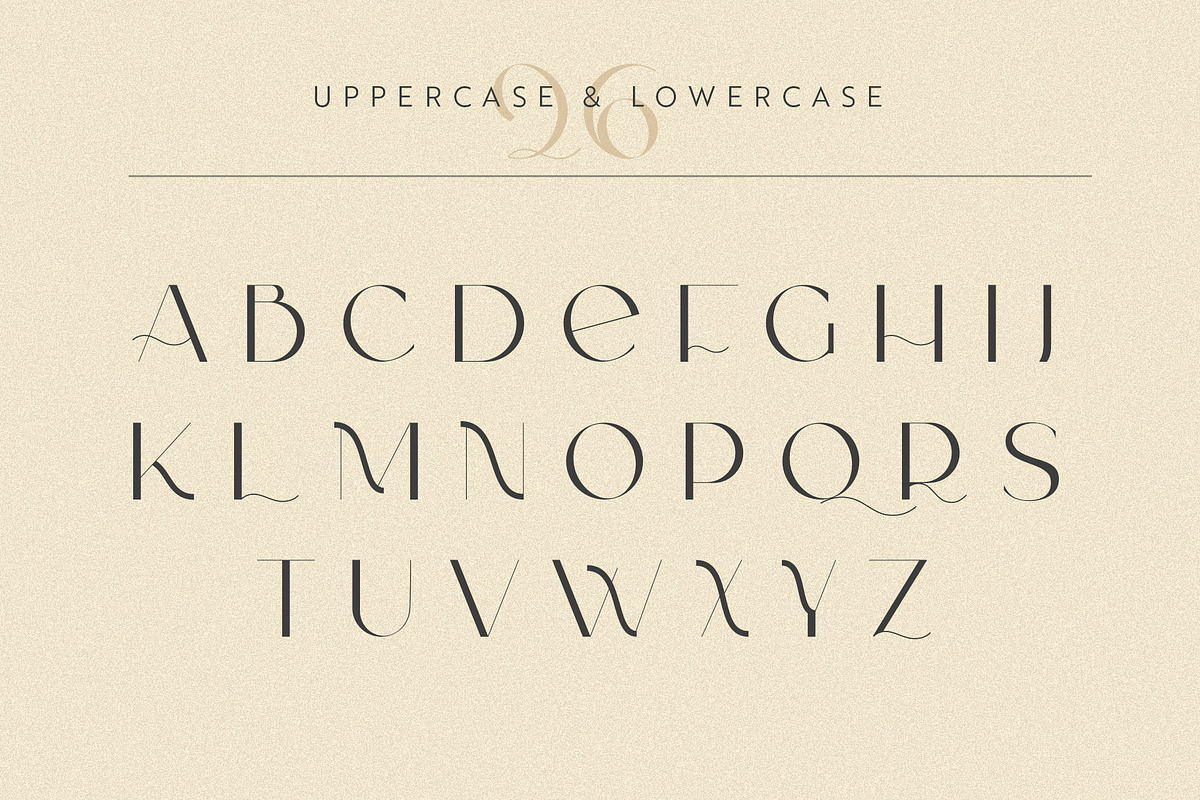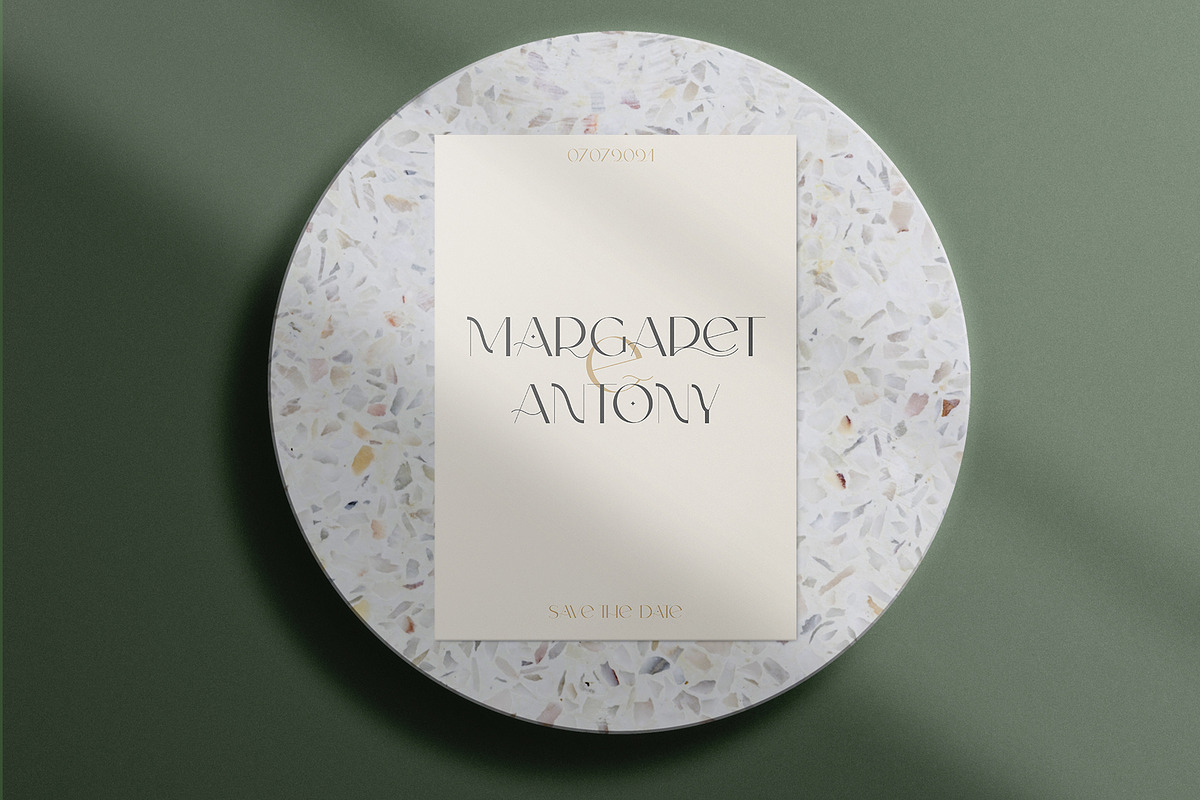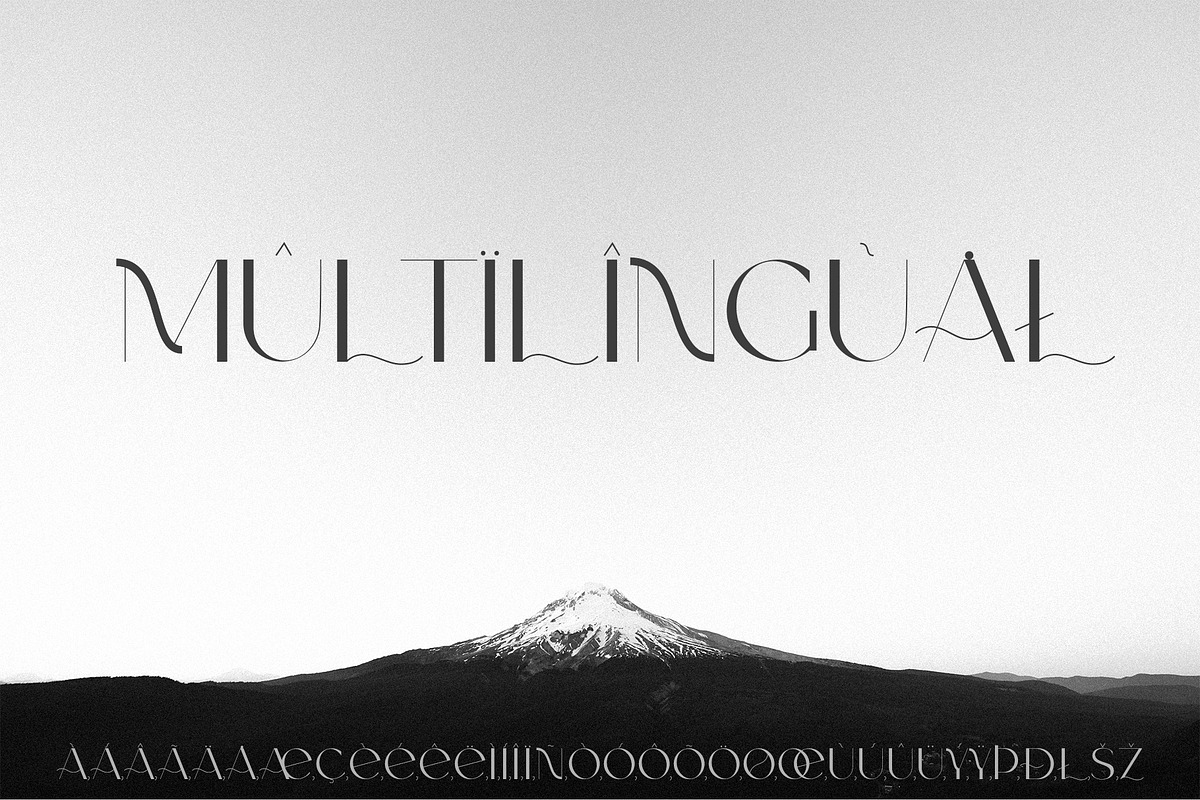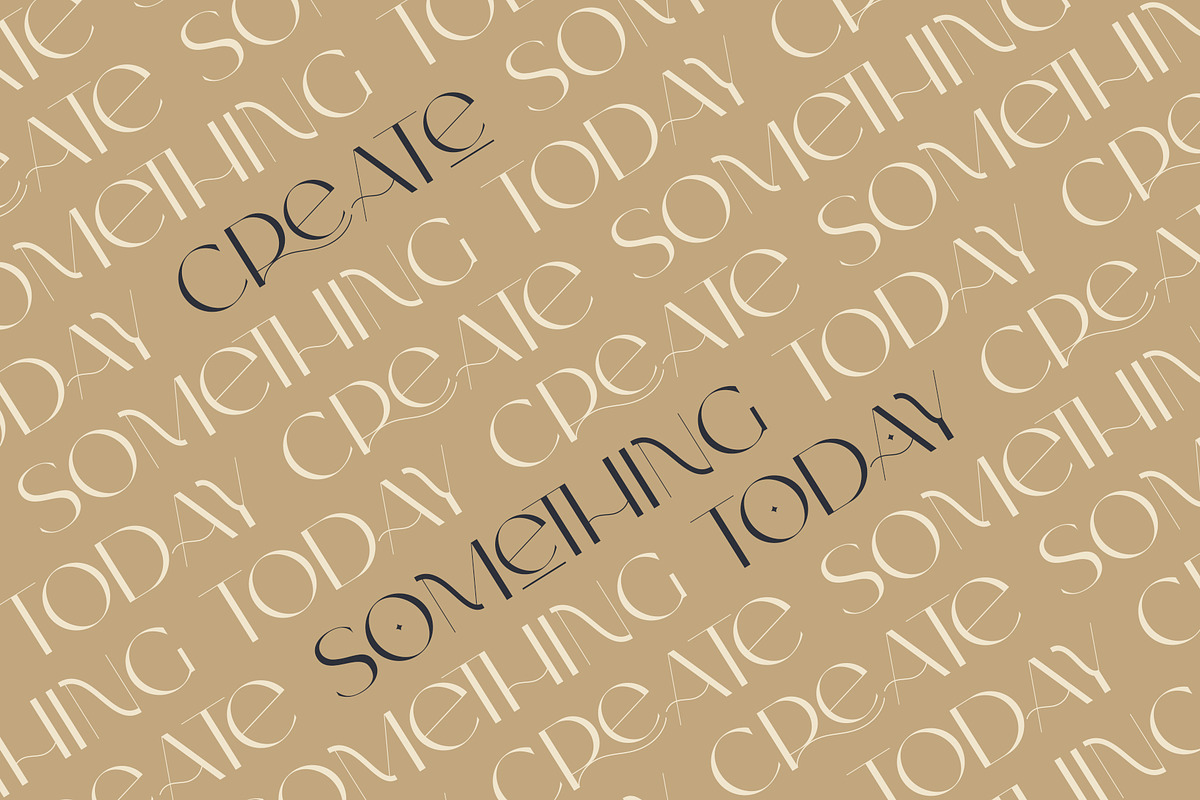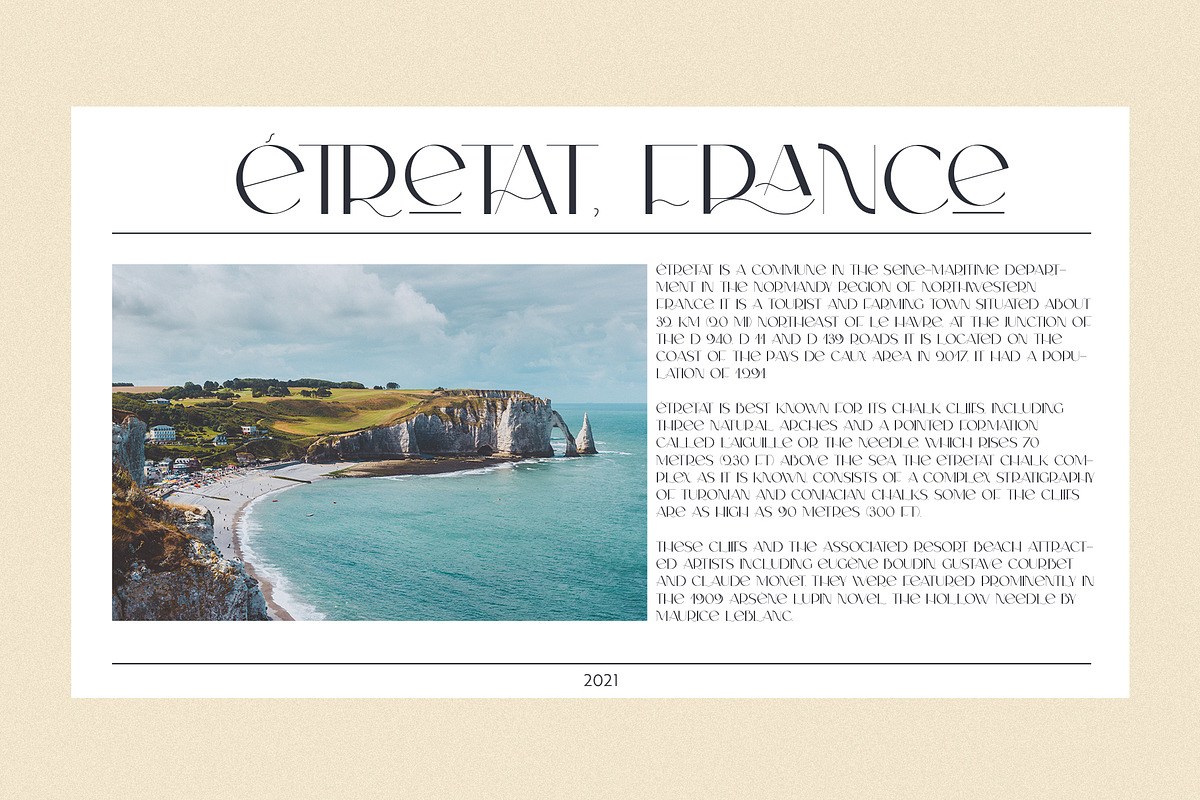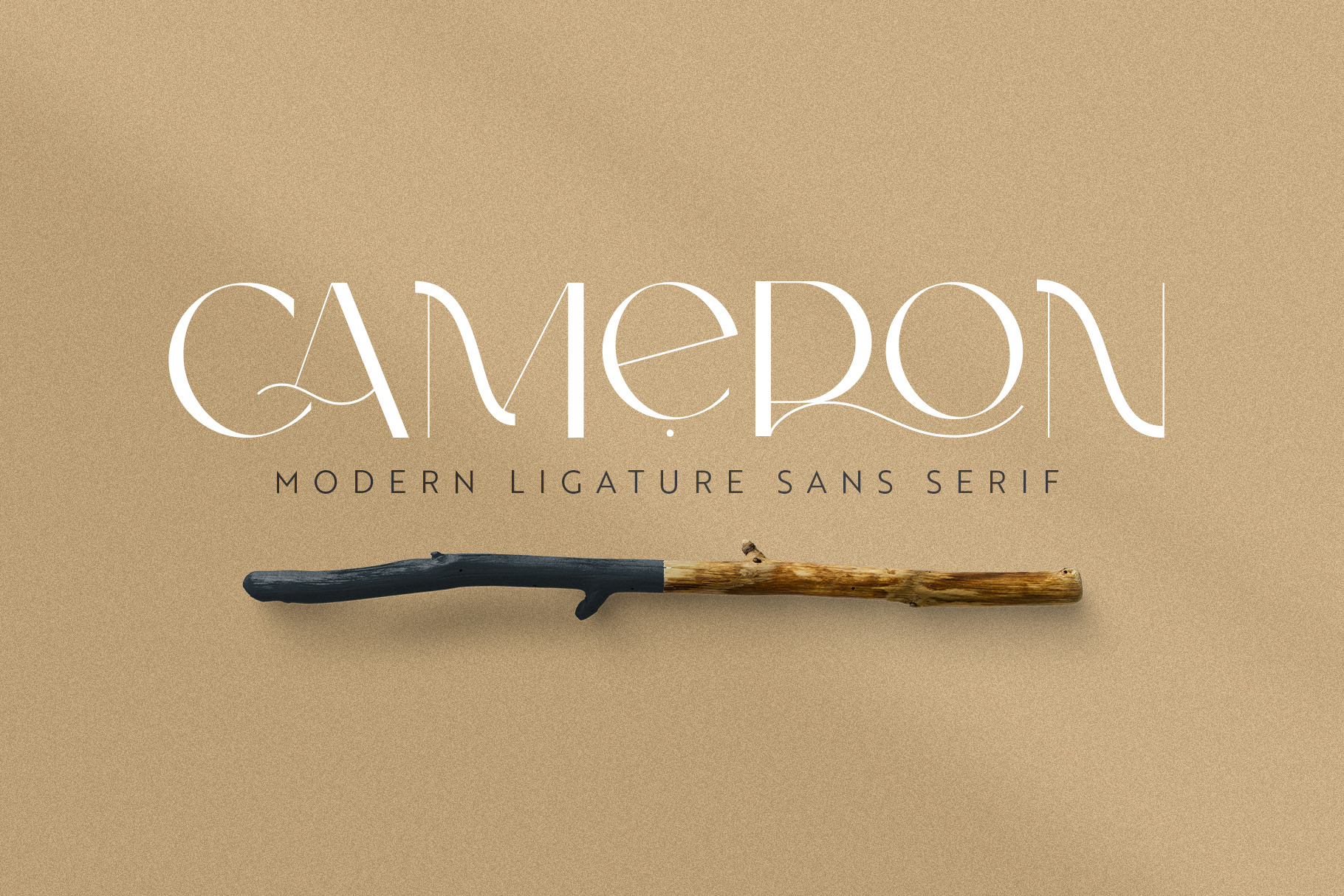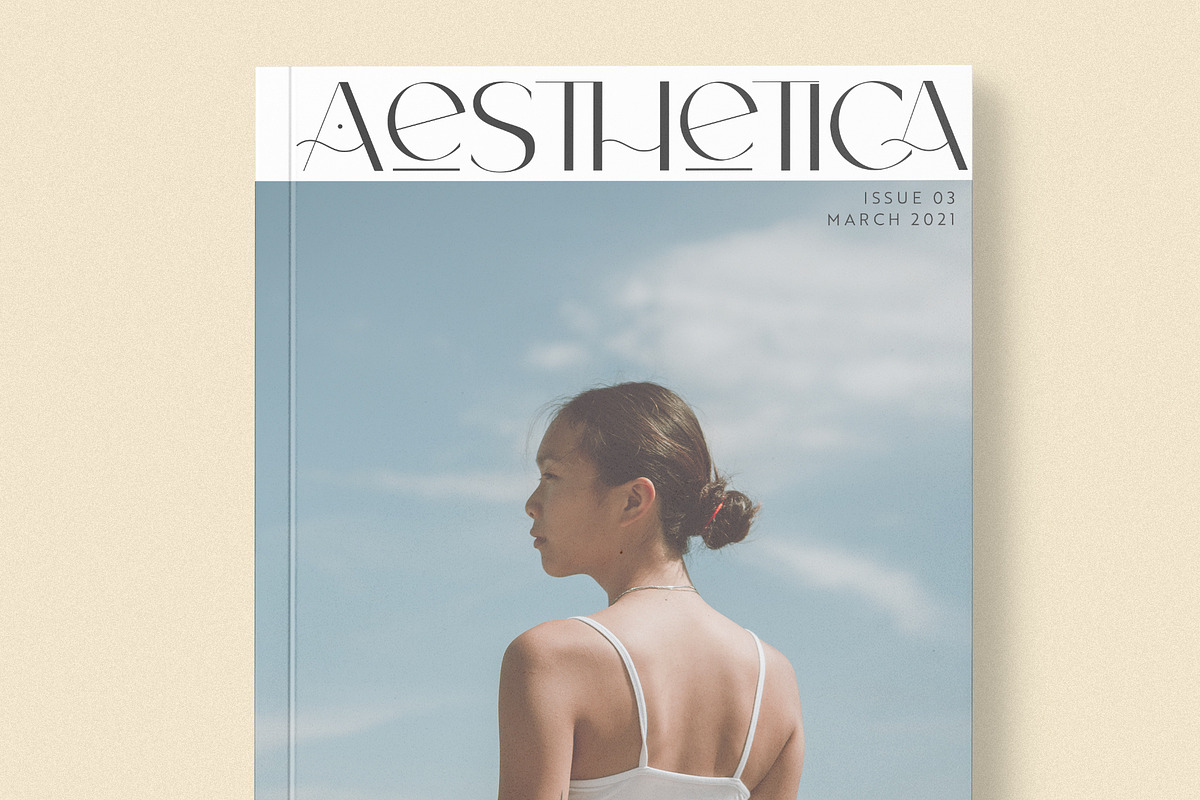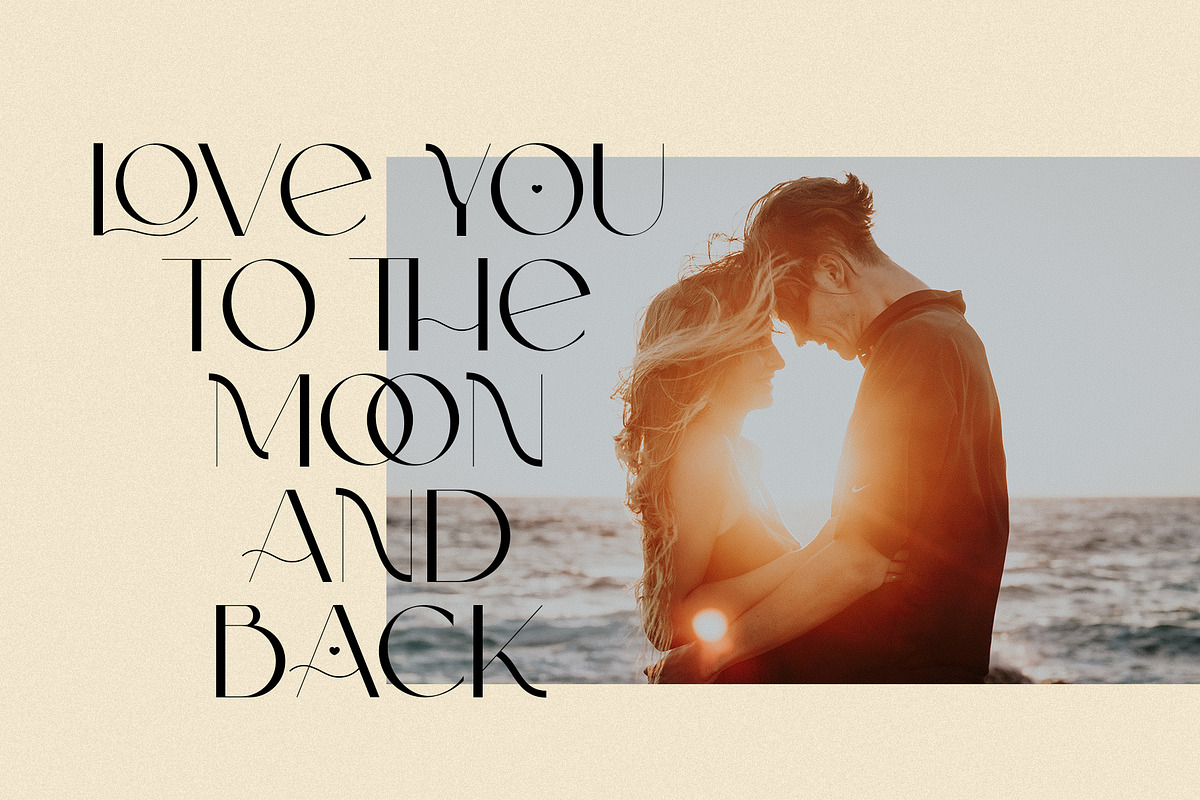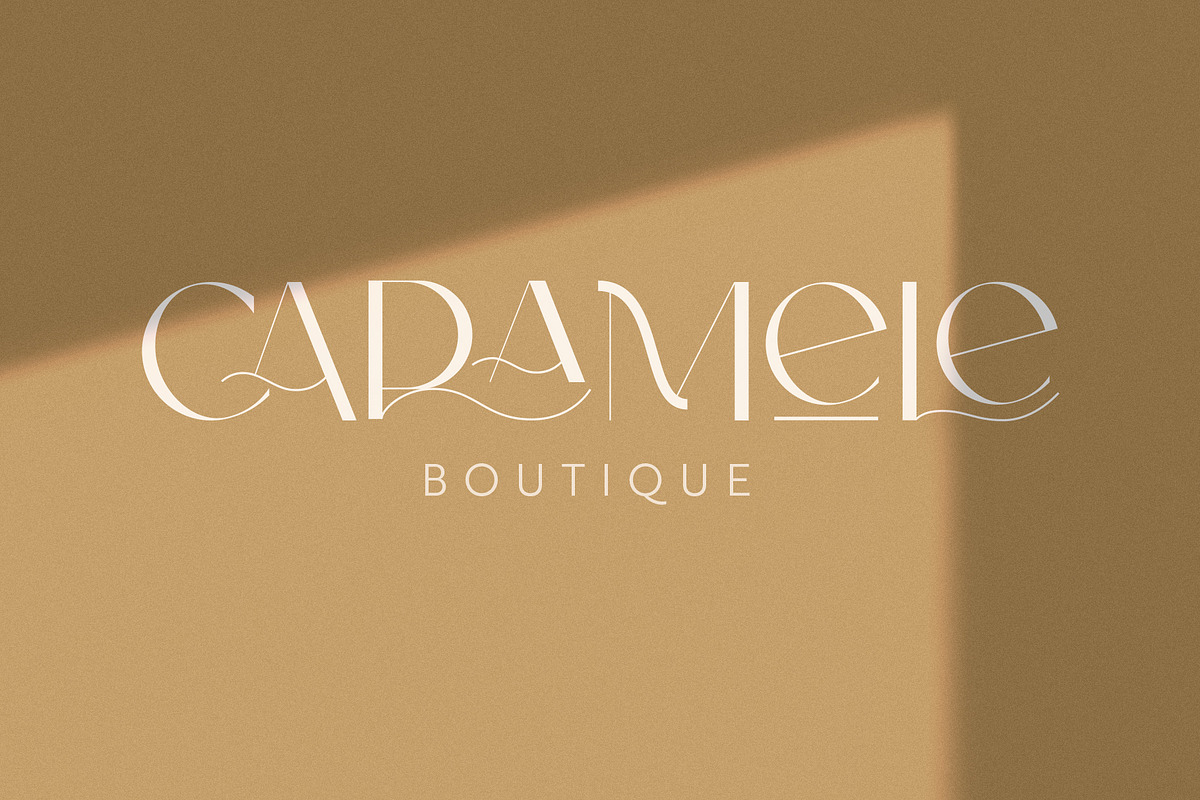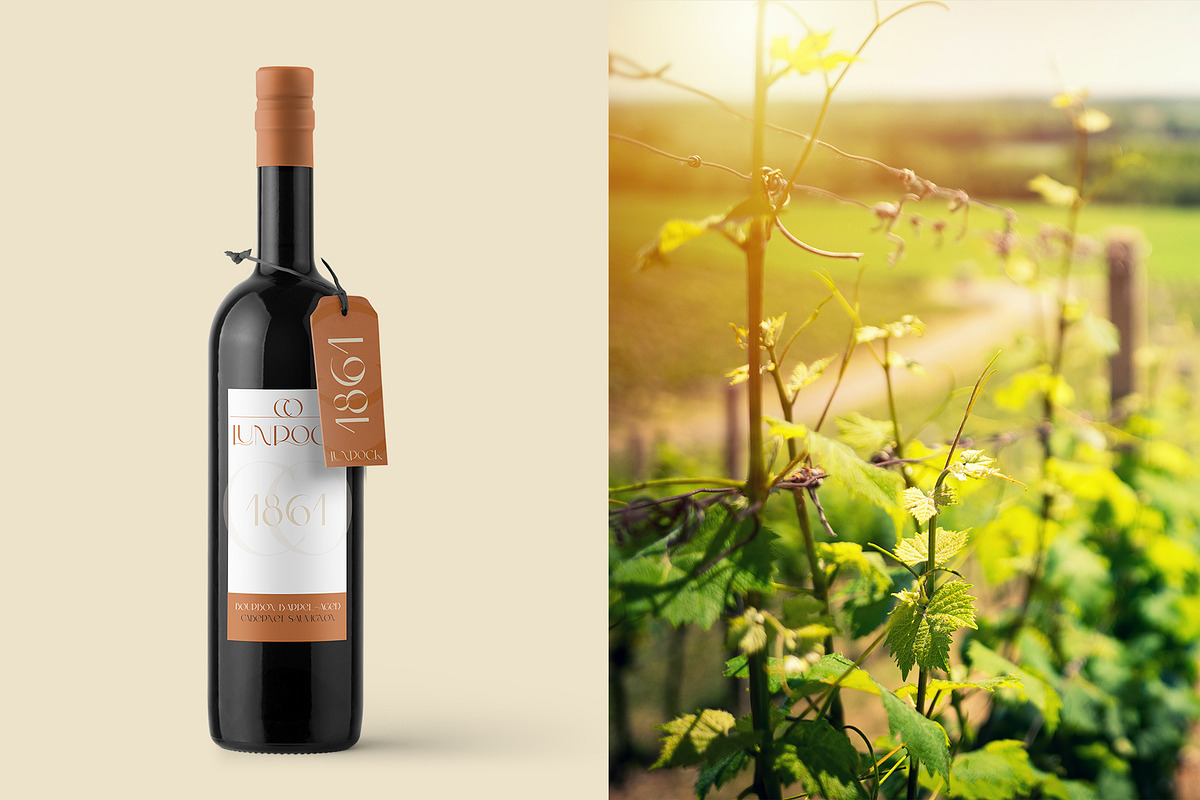
Cameron | Modern Sans Serif Font
Cameron - new modern ligature sans serif font. Inspired by classical sans serif font and luxury typography. Includes high contrast characters, many beautiful ligatures and different characters variants. This font perfect for all kind of design: social media and visual content, web and UI design, posters and art collage, branding and logos, wedding typography. It will be modern elegance design.
- Latin Upper Case characters;
- Numbers;
- Punctuation;
- Special symbols;
- Character's ligatures;
- Characters's alternatives;
- Multilingual Support.